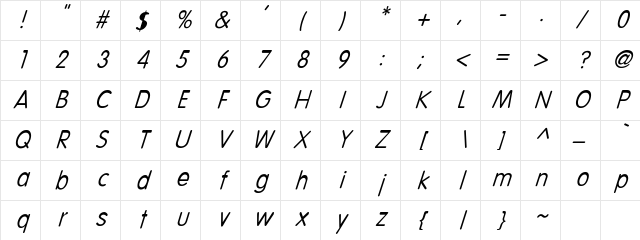
Volte-Italic Regular Free Font
Volte-Italic Regular
Design Context for Volte-Italic
Volte-Italic is a composed and adaptable typeface that performs quietly and consistently across a wide range of design contexts. The slanted form adds forward momentum and visual energy.
Pro Tip: Use Volte-Italic for emphasis, pull quotes, and subheadings where its slanted energy can add rhythm to the layout.